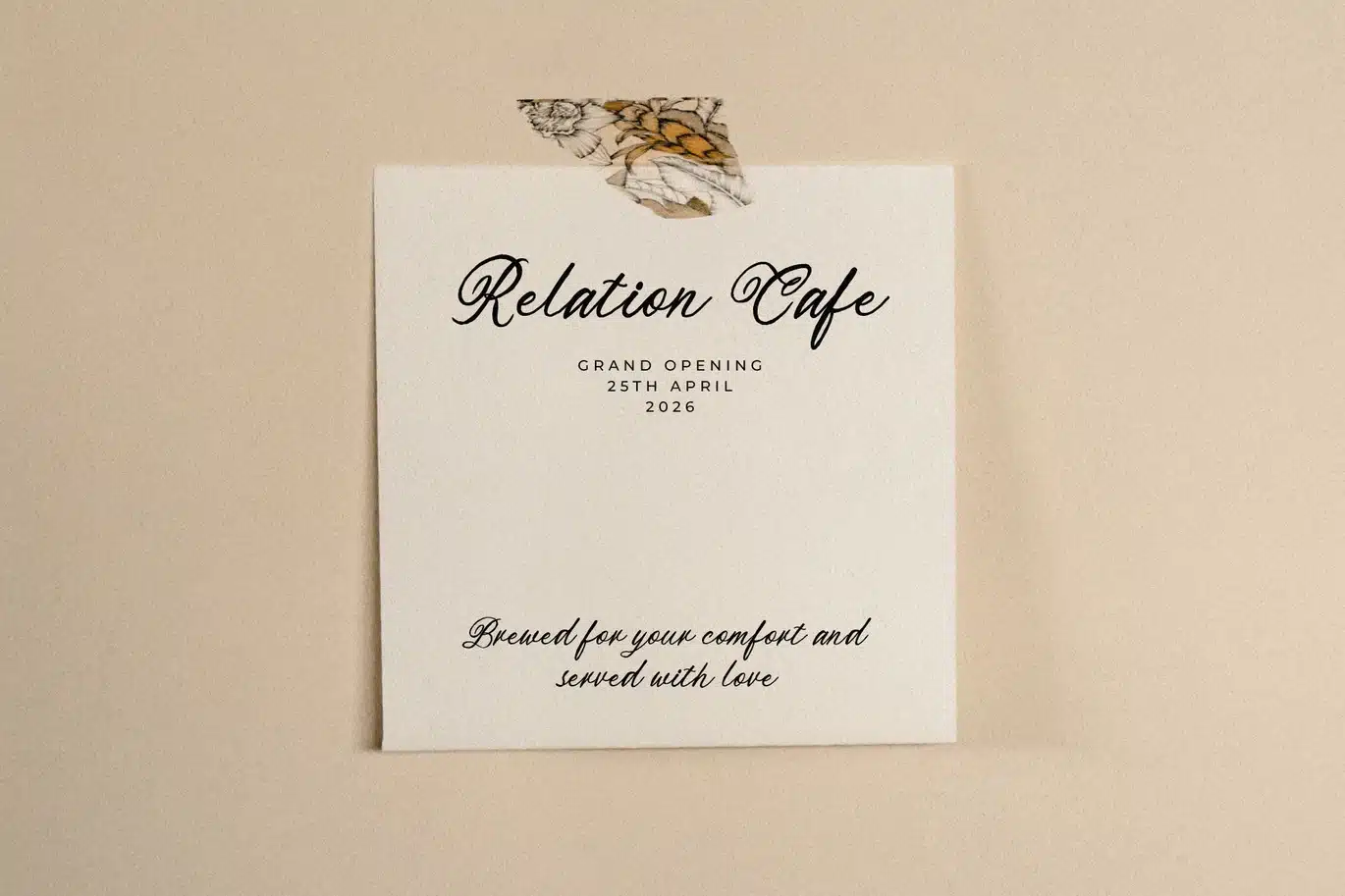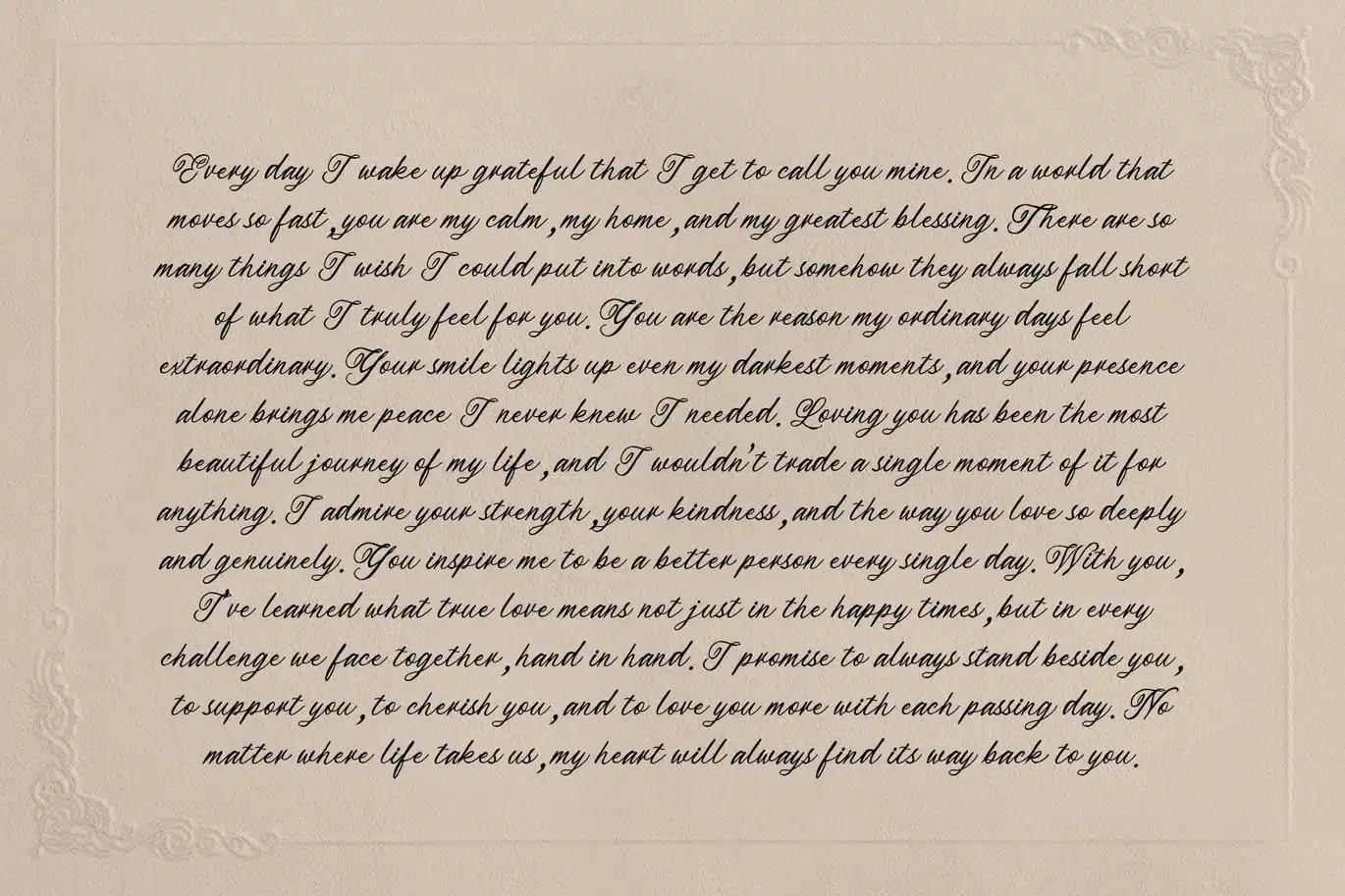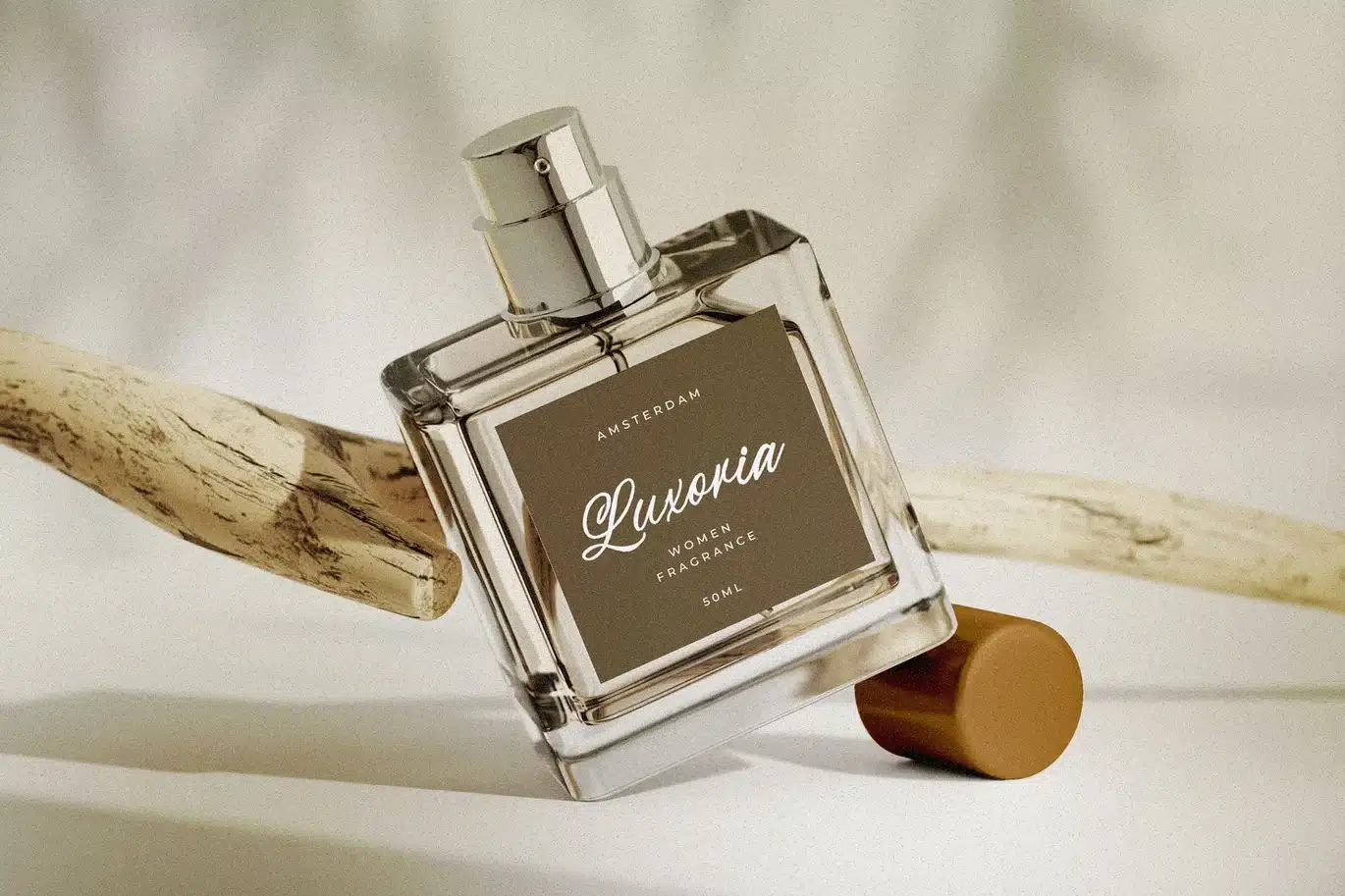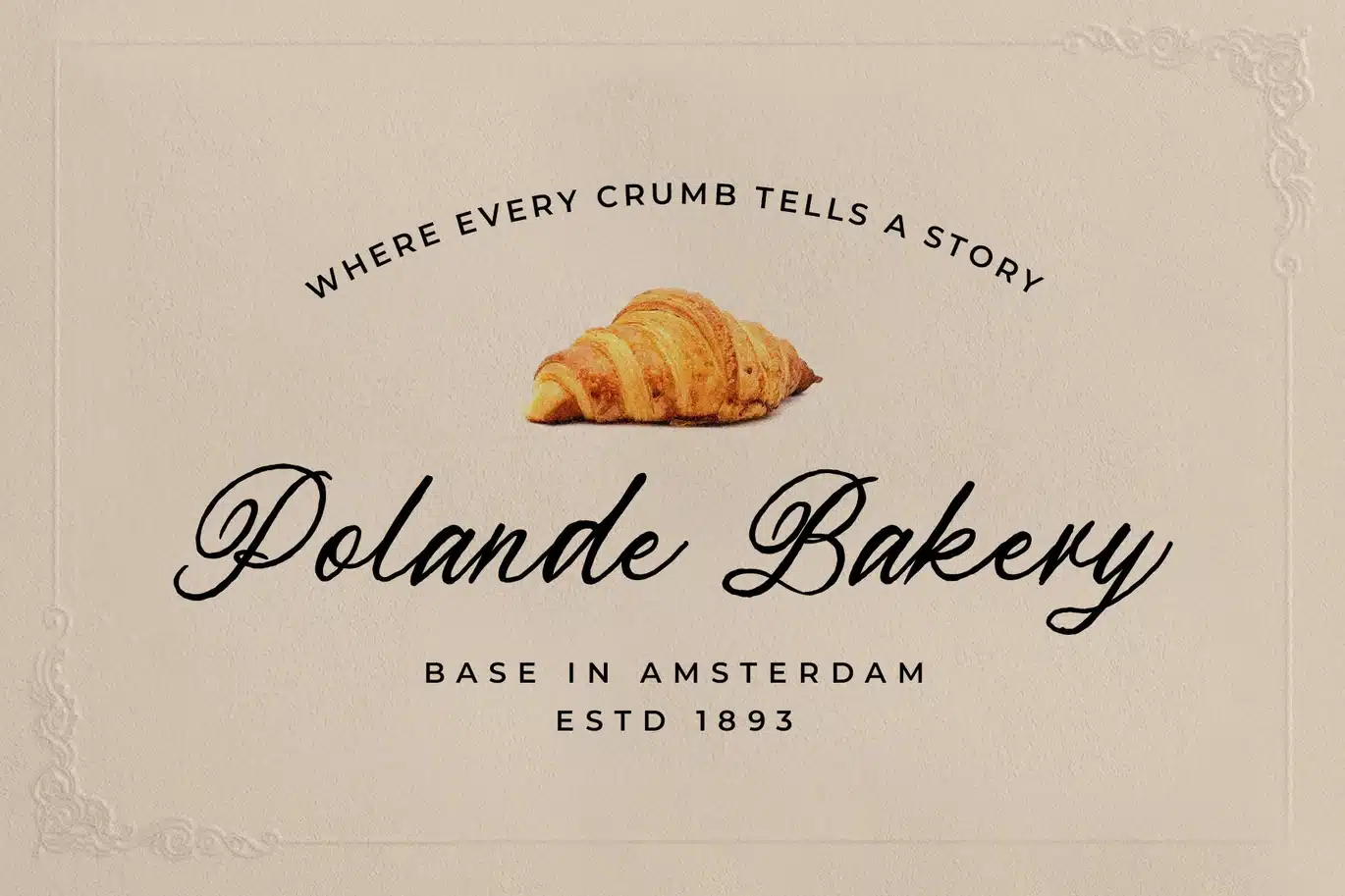
Atelier Grande Handmage Vintage Script Font
Atelier Grande is handmage vintage script font with with natural stroke captures the quiet beauty of authenticity and timeless craftsmanship. Inspired by classic penmanship and old-world lettering, this style brings a sense of warmth, nostalgia, and human touch to modern design.